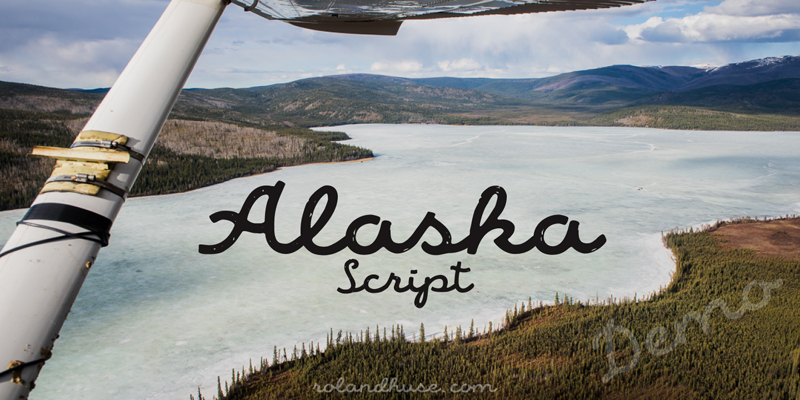
ALASKA SCRIPT DEMO is the demo version of this fully cursive retro style, hand drawn script. It has contextual alternates for smooth connection of o-r, b-s etc. For best result please make sure you are using this font with softwares that supports open type features and you have these features turned on: - Contextual alternates and - Standard ligatures. For full version and license please visit http://store.rolandhuse.com If any question or feedback please feel free to contact@rolandhuse.com Happy designing and good luck with your work! Roland Poster image credit: Patrik Banas http://blog.patrikbanas.com/ http://www.rolandhuse.com https://www.facebook.com/pages/Runes-And-Fonts/123221817784772 |